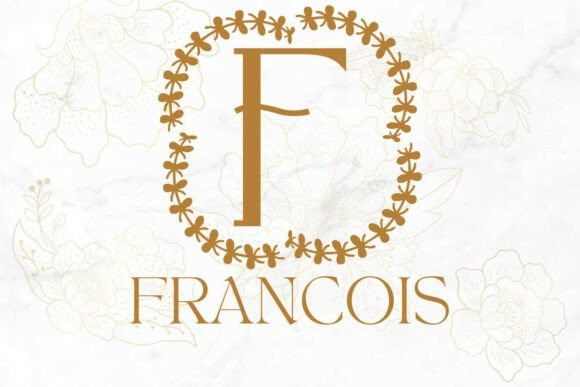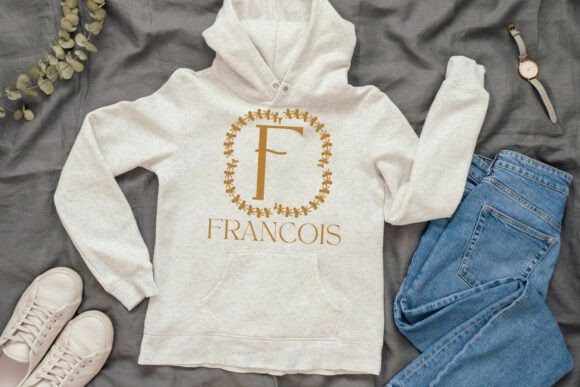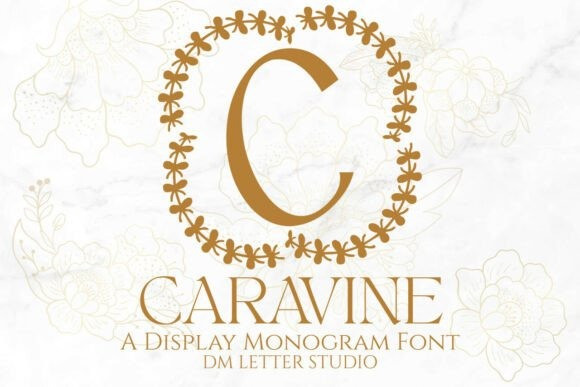
Caravine Monogram Font
Caravine Monogram Font turns simple initials into elegant marks that read fast. Lines feel smooth. Curves stay balanced. Because counters are open, tiny tags still look crisp. Use it for wedding suites, boutique logos, keepsake gifts, and premium packaging. Moreover, this Monogram Font pairs beautifully with soft serifs and modern sans. Therefore, your layouts feel refined without extra effort.
Set single, double, or triple initials for logos and seals. Then add fine borders, laurel rings, or oval frames to echo the form. Since proportions favor symmetry, polished compositions come together in minutes. As a result, your thumbnails stand out and listings stay consistent. Plus, Caravine scales from jewelry cards to venue signage with ease.
Keep initials large and let negative space breathe. Pair the headline with a quiet serif or a humanist sans. Meanwhile, add micro shadows, thin inner strokes, or a fine frame. Because this Monogram Font is airy, metallic accents and textured papers raise perceived value. Try champagne with charcoal, blush with espresso, or midnight with pearl.